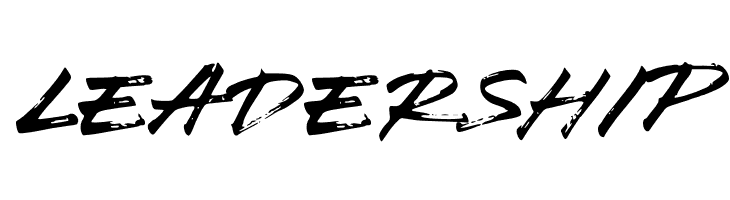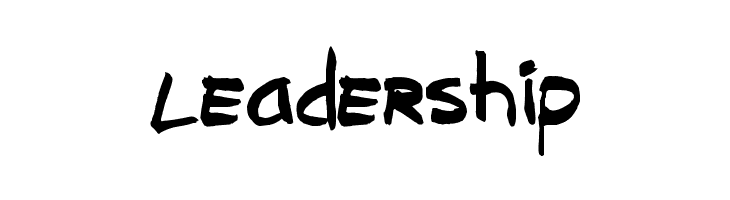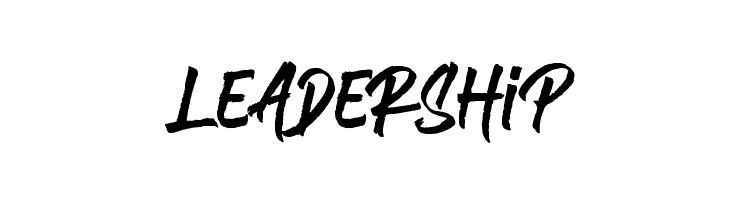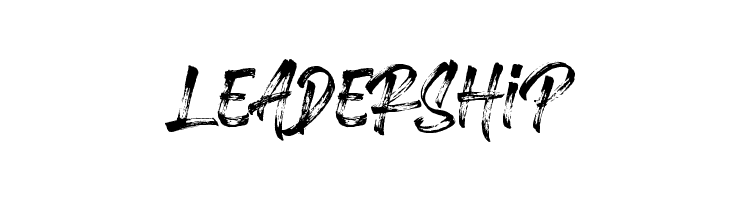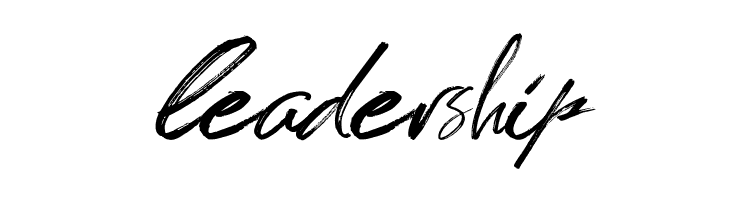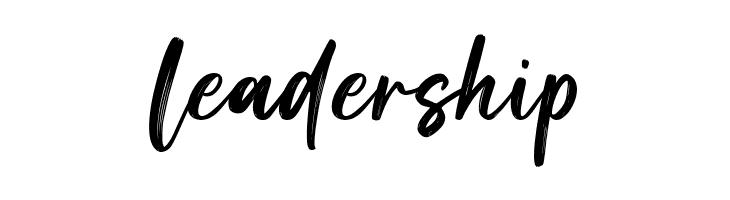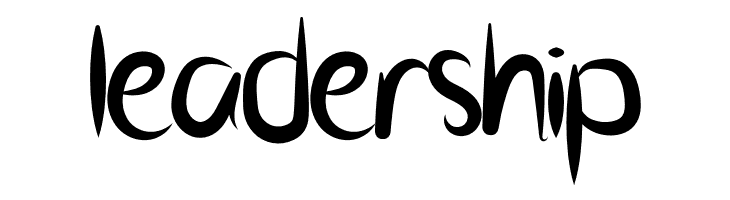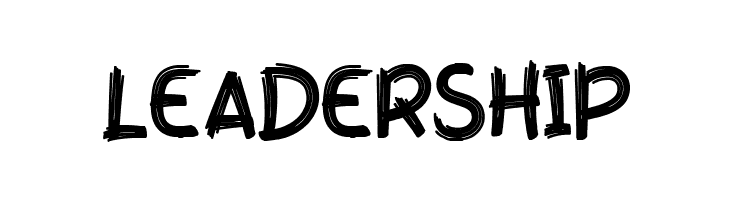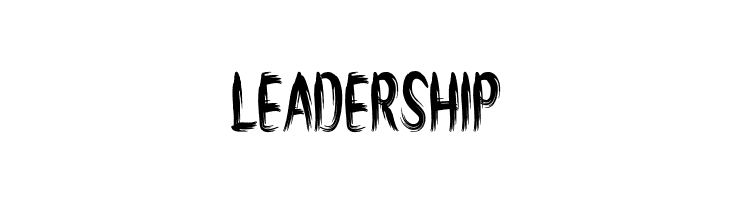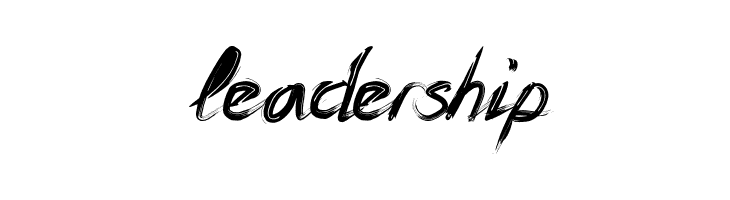
A bold, shadowed decorative font with a three-dimensional effect.
A playful, bold font with elongated, narrow characters.
A playful, flowing script font with smooth curves and elegant loops.
A bold, dynamic font with a slight slant and strong visual impact.
A bold, blocky font with characters enclosed in square frames, evoking a vintage or industrial aesthetic.
A bold, geometric font with strong, angular shapes and high visual impact.
A bold, dynamic font with a modern, futuristic style and high contrast.
A bold, pixelated font with a retro, digital aesthetic.
A bold, geometric font with a modern, segmented design.
An elegant script font with flowing, cursive style and intricate swashes.
A bold, modern font with thick strokes and unique curves.
A playful, casual handwritten font with smooth, flowing lines.
A bold, brushstroke-style font with dynamic and lively characters.
A dynamic, expressive handwritten font with irregular, organic strokes.
A hand-drawn, artistic font with irregular strokes and a dynamic appearance.
An artistic, medieval-inspired font with sharp serifs and elegant curves.
A bold, decorative font with dynamic strokes and whimsical flair.
A decorative serif font with bold, angular serifs and dynamic strokes.
A decorative font with a calligraphic and artistic style, featuring bold strokes and unique serifs.
A bold blackletter font with sharp, angular strokes and a Gothic influence.
A bold, angular blackletter font with a modern twist.
A bold, playful font with thick, rounded strokes and whimsical curves.
A bold, elegant script font with flowing, cursive letterforms.
A flowing, cursive font with elegant, sweeping strokes and high contrast.
A bold, geometric font with a digital, pixelated style.
A bold, energetic, hand-drawn font with brush-like strokes and a lively appearance.
A lively, expressive script font with a modern, handwritten style.
An elegant and decorative script font with ornate loops and swirls.
A dynamic, cursive script font with fluid, expressive strokes.
A playful, hand-drawn style font with a whimsical and artistic flair.
A bold serif font with strong strokes and pronounced serifs, offering a modern twist on traditional design.
A bold, brushstroke typeface with an energetic, handcrafted style.
A dynamic brushstroke-inspired font with an artistic and textured appearance.
A bold, brush-style font with a dynamic and creative appearance.